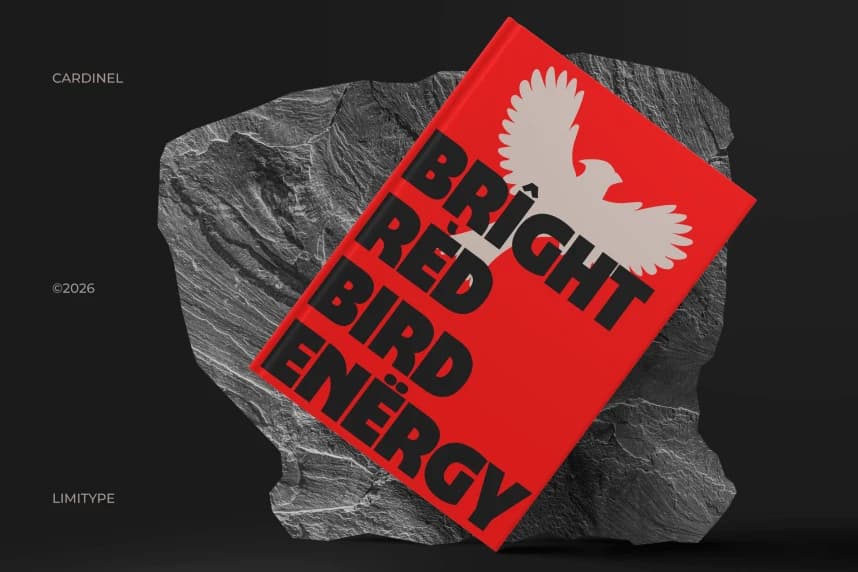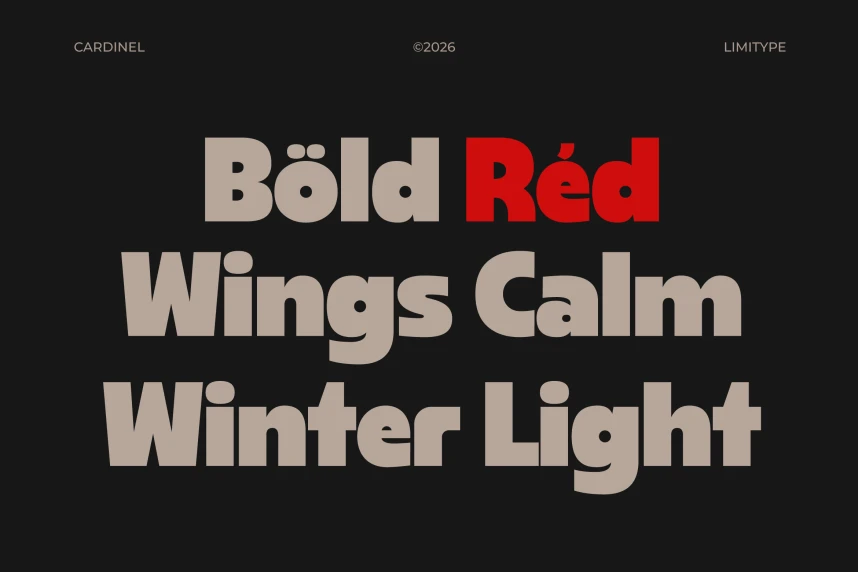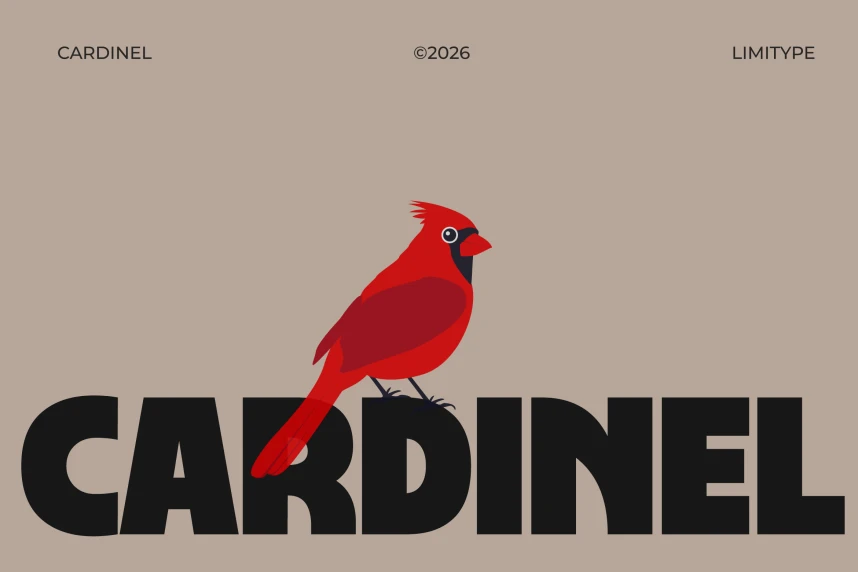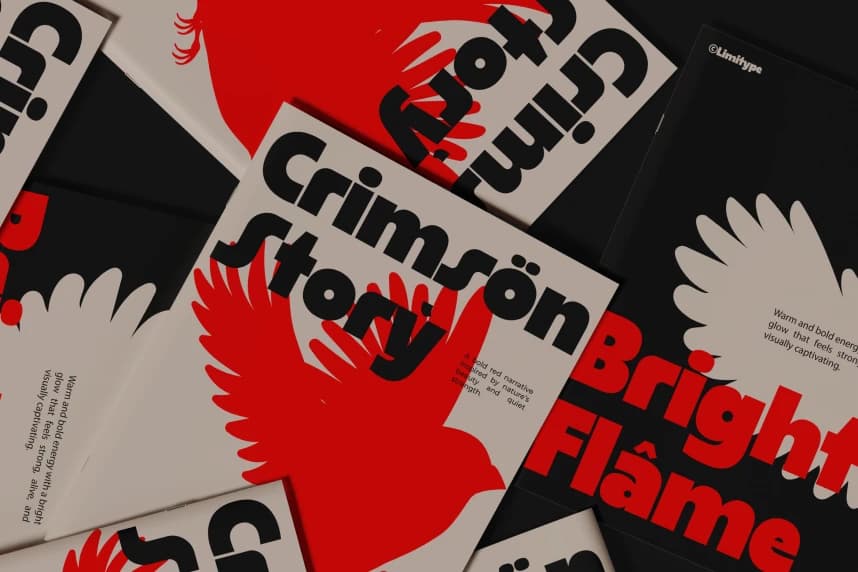
Cardinel Font is a bold, modern typeface built on a strong geometric structure and a dynamic visual rhythm, giving it a clean and contemporary feel. Its crisp yet energetic forms work especially well for branding, logos, headlines, posters, and editorial layouts that need to stand out.